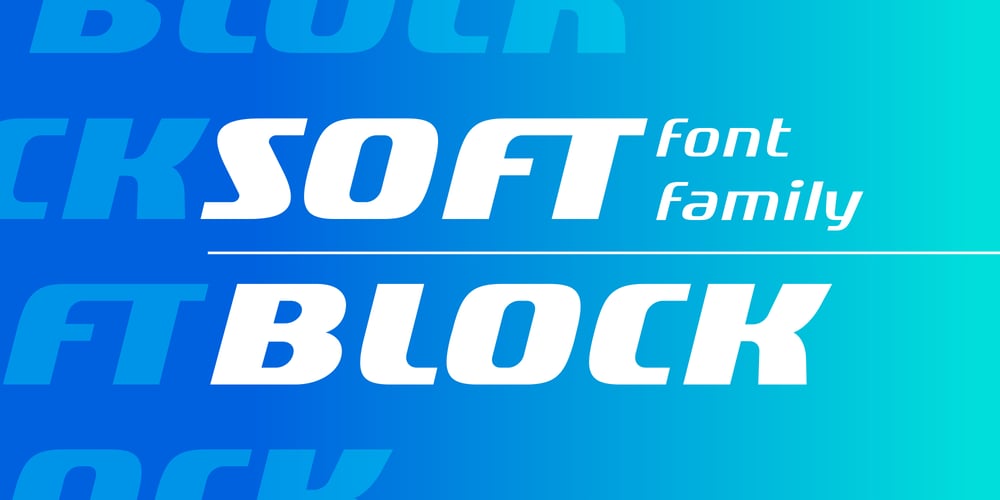
Soft Block Font Family was designed by Svetlin Balezdrov and published by fontgeneration. Soft Block contains 5 styles and family package options. The letters possess some of the most characteristic features of this type of font, used for communication and advertising in various mechanized and motor sports, as well as in the gaming industry. The technological-engineering constructiveness is achieved through the strict geometry of the forms, and the sporty competitive look is stylistically expressed through the slopes and contrasts of the beams.